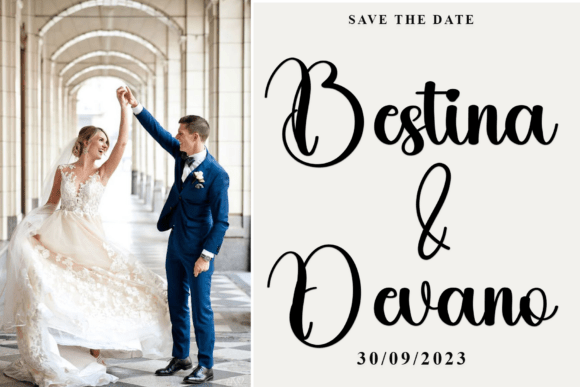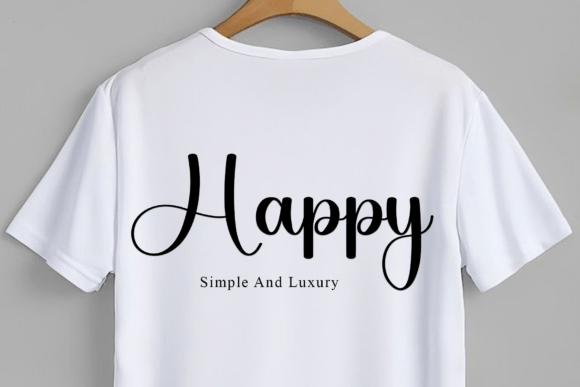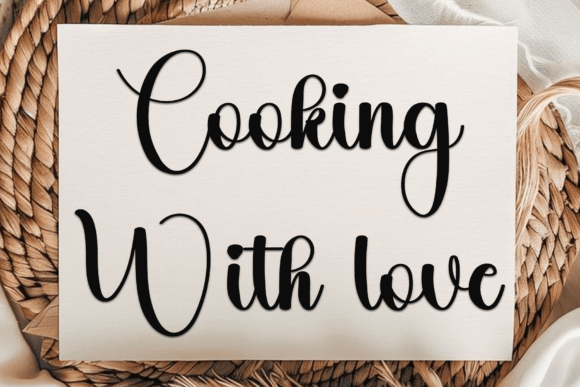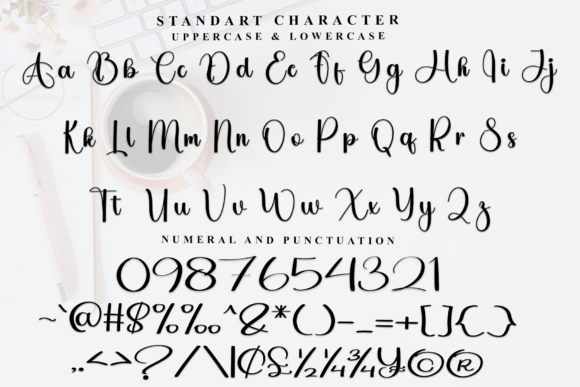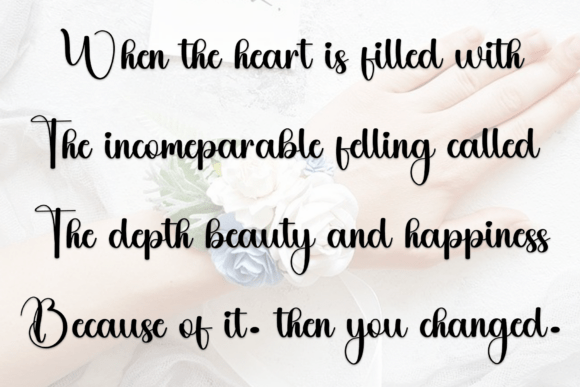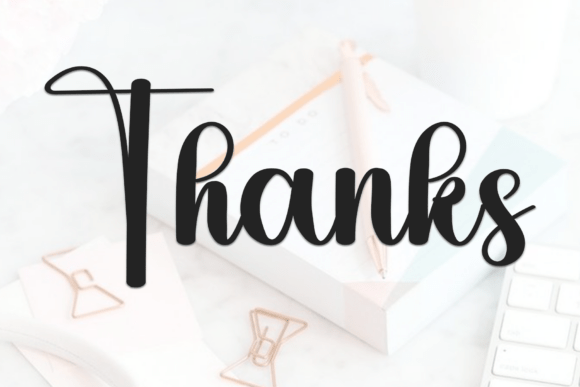
The Magic of Almond Smoothie Font: A Festive Holiday Delight
Ah, the holiday season is upon us, and you know what that means – a flurry of design projects, gift tags, greeting cards, and festive decorations. As a designer, I’m always on the lookout for the perfect font to capture the essence of this merry time of year. Recently, I stumbled upon the Almond Smoothie font, and I must say, it’s been a game-changer for my holiday designs.
I recall working on a project for a client who wanted a custom holiday card with a whimsical feel. I spent hours scouring font libraries, but nothing seemed quite right. That was until I discovered Almond Smoothie. Its decorative elements and whimsical flair instantly transported me to a winter wonderland of design possibilities. In this article, I’ll share my experience with this enchanting font, and provide you with a comprehensive guide on how to make the most of its features.
An Honest Review of Almond Smoothie Font
- ✅ Festive and merry vibe that’s perfect for holiday designs
- ✅ Decorative elements and whimsical flair add a touch of enchantment to your typography
- ✅ PUA encoded for easy access to glyphs and ligatures
- ✅ Works beautifully for greeting cards, gift tags, and holiday-themed projects
- 🤔 May not be suitable for formal or corporate designs, as it’s quite playful
- ⚠️ Some users may find the font a bit too ornate or over-the-top for certain projects
The Backstory of Almond Smoothie Font
Almond Smoothie was designed by a talented type designer who’s passionate about creating festive and fun fonts for the holiday season. Inspired by the magic of winter and the joy of giving, this font was crafted to bring a touch of enchantment to your designs. Whether you’re a designer, crafter, or creative hobbyist, Almond Smoothie is sure to become a favorite in your font collection.
Q: What is PUA encoding, and how does it work?
A: PUA (Private Use Area) encoding is a way of accessing special characters and glyphs in a font. With Almond Smoothie, PUA encoding allows you to easily access the font’s decorative elements and ligatures.
Q: Is Almond Smoothie available in different weights or styles?
A: Currently, Almond Smoothie is available in a single weight. However, the designer may release additional weights or styles in the future, so be sure to check for updates.